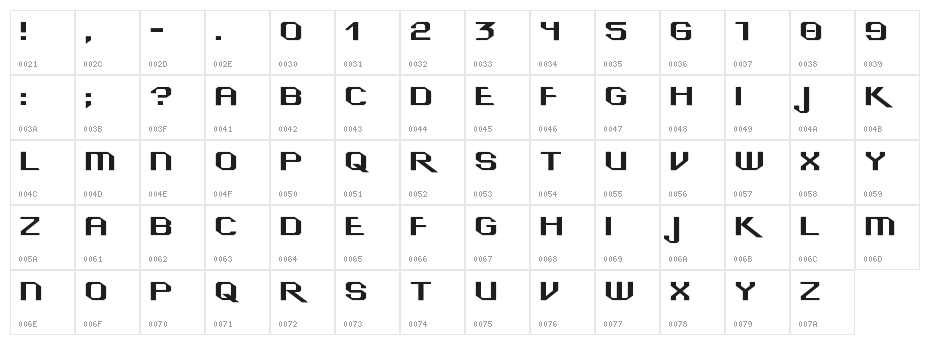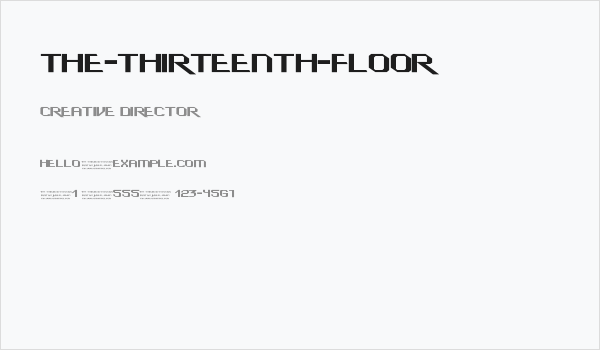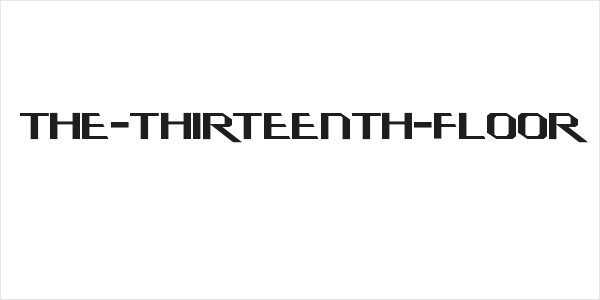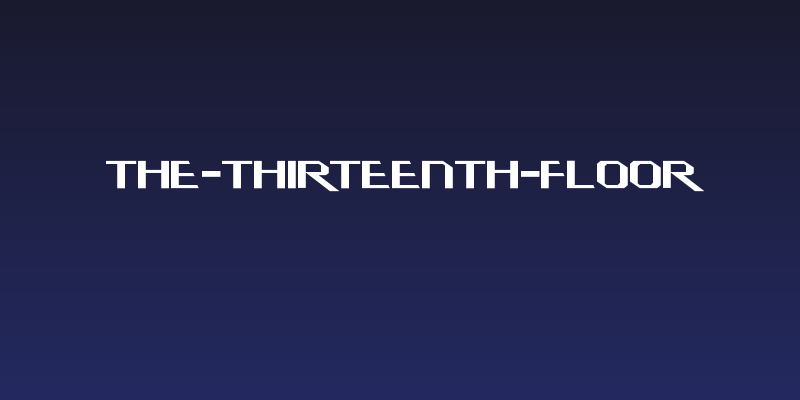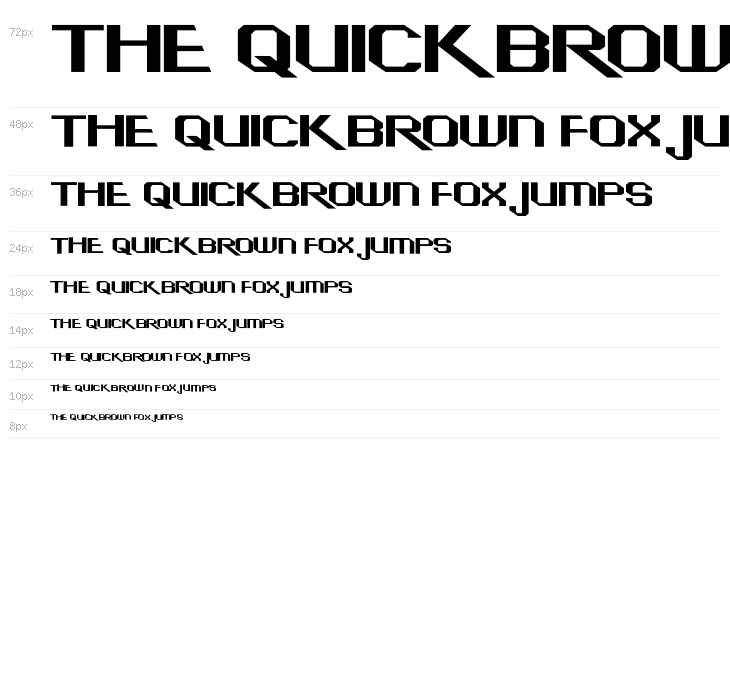
The-Thirteenth-Floor Font
The-Thirteenth-Floor Description
This font features a modern and sleek design with clean lines and a geometric structure. The characters are well-defined, with a consistent stroke width that gives it a uniform appearance. The uppercase letters are bold and commanding, while the lowercase letters maintain a balanced and harmonious look. The numerals are clear and easy to read, making them suitable for various applications. Special characters are included, adding versatility to the font's use. Overall, this font exudes a contemporary and professional vibe, making it ideal for digital and print media.